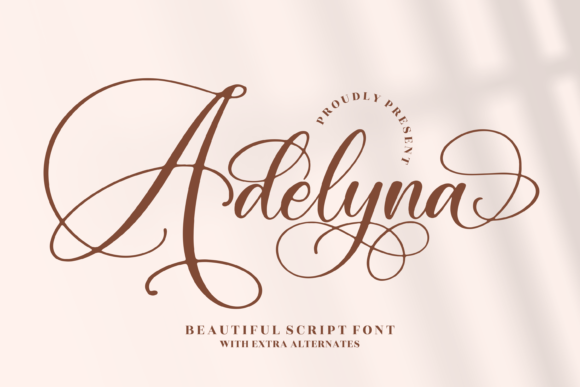
Unleash the Enchantment of Adelyna: A Script Font Symphony for Design Resumes
In the realm of design, fonts hold the power to transform the mundane into the mesmerizing. Adelyna, a captivating script font, emerges as a symphony of elegance, beckoning you to elevate your design resume to new heights of sophistication.
With its graceful curves and delicate strokes, Adelyna embodies the essence of refinement. Its sweeping lines evoke a sense of fluidity, guiding the reader's eye through your resume with effortless grace. The font's open and airy characters ensure optimal readability, ensuring that your skills and accomplishments shine through.
Adelyna is a versatile performer, effortlessly adapting to a variety of design aesthetics. Whether you seek a classic and timeless look or a touch of modern flair, Adelyna seamlessly blends with your vision. Its understated beauty allows your content to take center stage, while adding a subtle touch of elegance that speaks volumes.
With Adelyna as your font of choice, your design resume will radiate professionalism and attention to detail. Its PUA encoding grants you easy access to a treasure trove of glyphs and swashes, empowering you to unleash your creativity and craft a resume that truly stands out.
Embrace the allure of Adelyna, and embark on a design journey where elegance and impact converge. Let your resume sing with sophistication, leaving a lasting impression on potential employers and opening doors to exciting new opportunities.